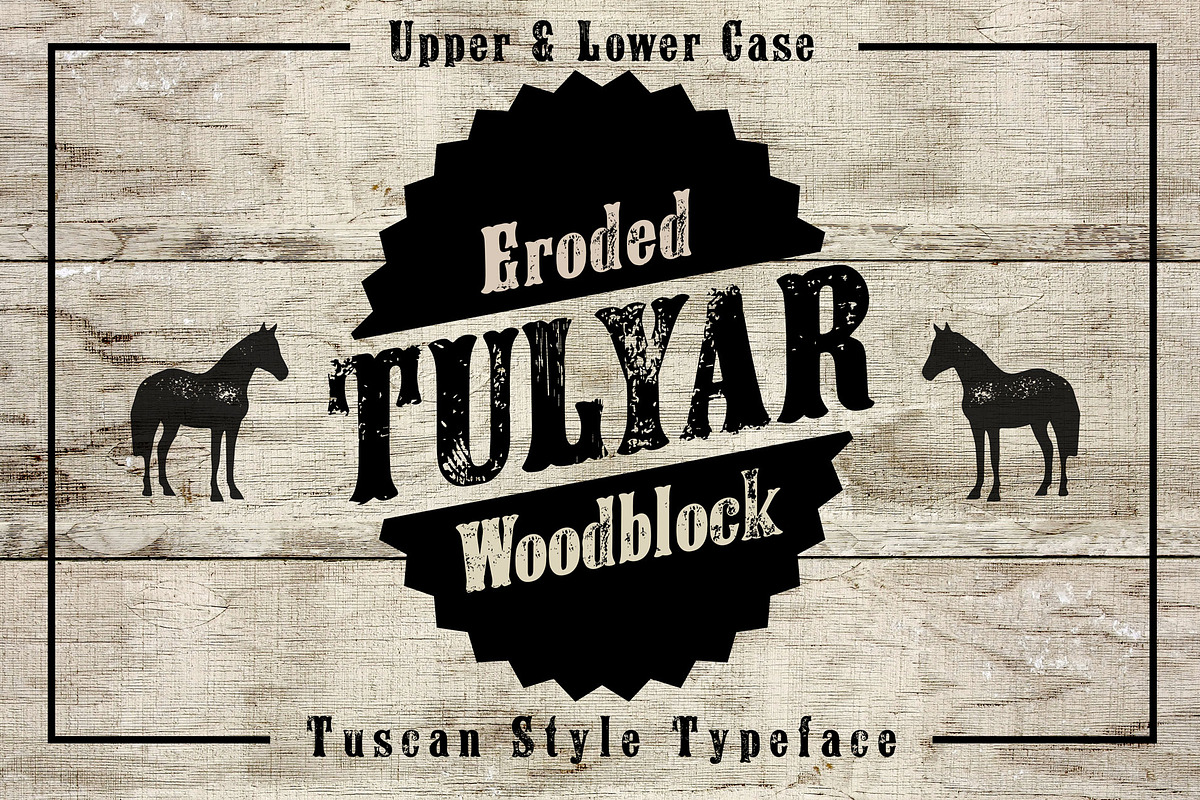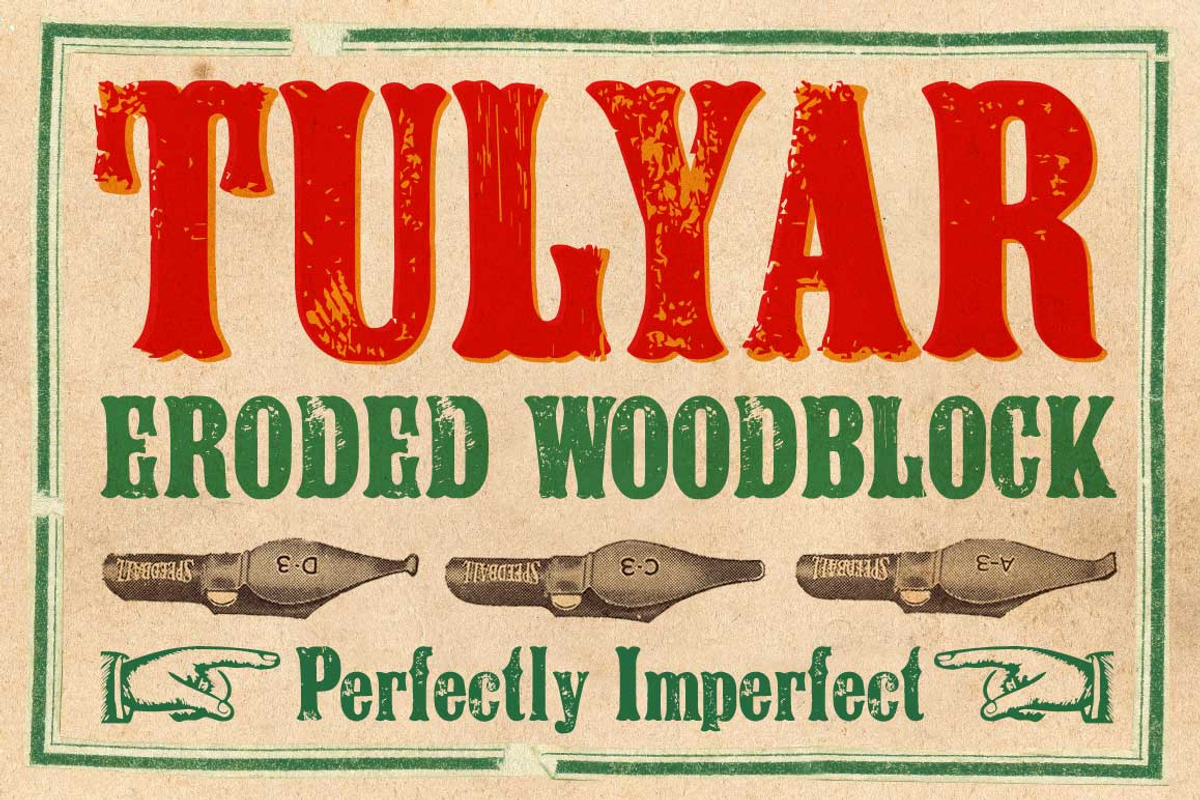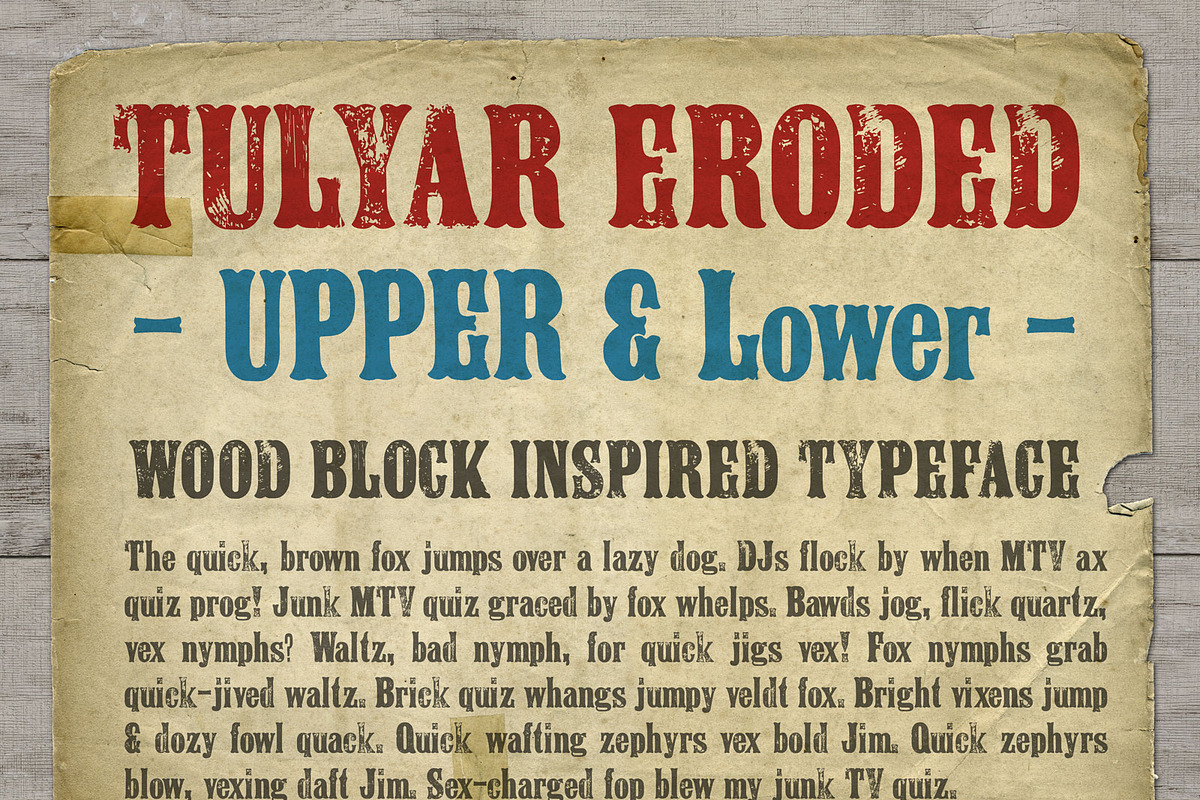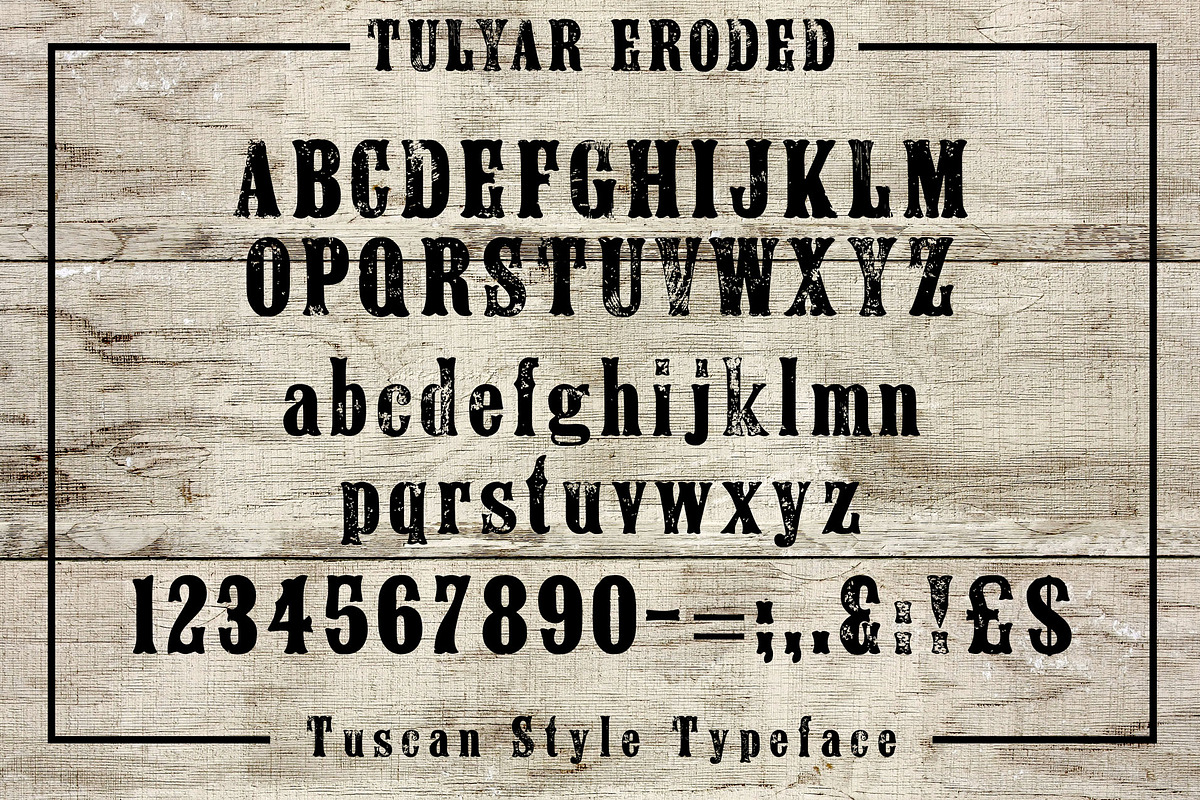
Tulyar Eroded Woodblock Font
A tuscan style display poster typeface in both upper and lower case. Based on traditional wood block type in eroded version.